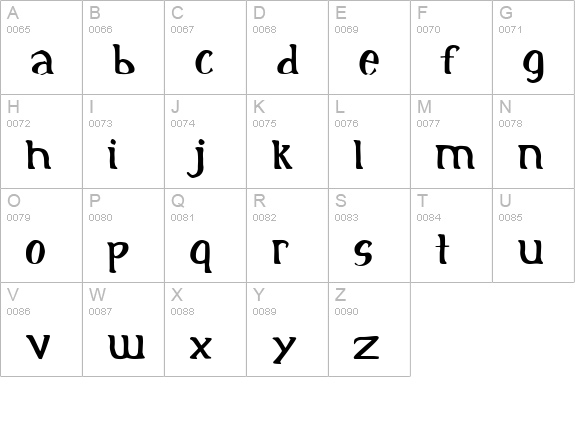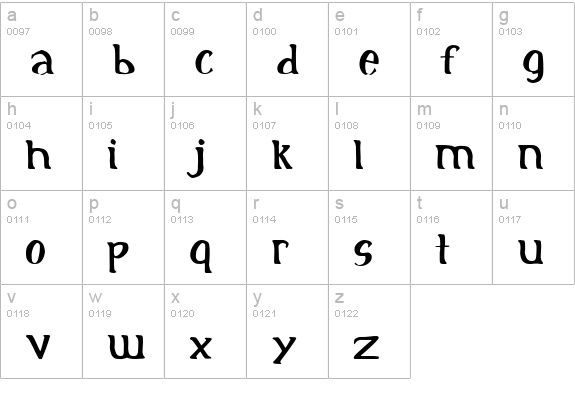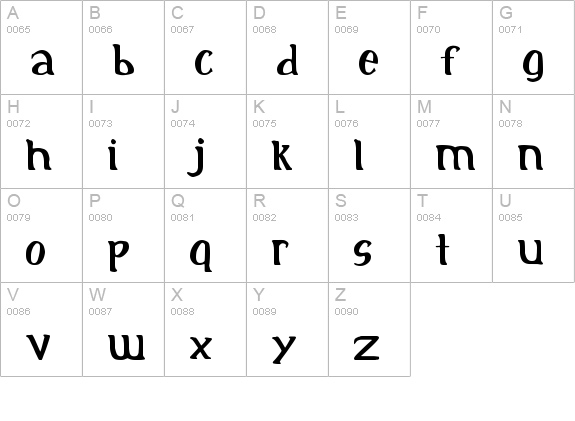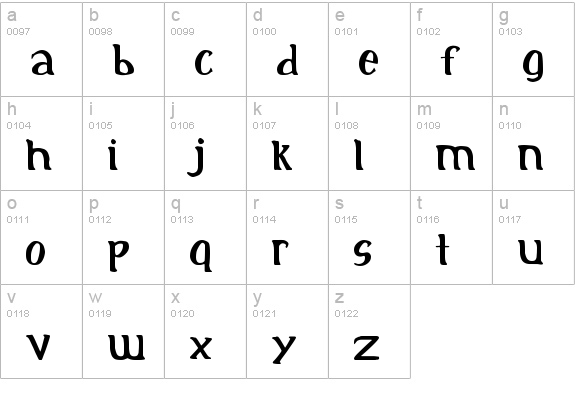
Initial Font Details
Introducing Initial font, a captivating typeface that exudes elegance and sophistication. Its enchanting curves and graceful strokes make it a perfect choice for any design project seeking to make a lasting impression. With its timeless appeal, Initial font effortlessly combines classic beauty with a modern twist. This versatile font offers a wide range of possibilities, whether you're designing a logo, creating a stunning invitation, or crafting a captivating headline. Its clean and legible characters ensure readability, while its artistic flair adds a touch of uniqueness to every design. What makes Initial font even more remarkable is that it is available for free download at FontsMarket.com. This means that you can enhance your projects with this stunning typeface without any financial constraints. Whether you're a professional designer or a creative enthusiast, Initial font allows you to unleash your creativity without breaking the bank. With its extensive character set, Initial font supports multiple languages, making it suitable for a global audience. Its smooth and seamless letterforms create a harmonious flow, enabling your text to effortlessly communicate your message. The beauty of Initial font lies in its ability to adapt to various design styles and aesthetics. Whether you're aiming for a contemporary look or a vintage vibe, this font effortlessly complements any visual concept. Its versatility knows no bounds, making it an invaluable asset in your design toolkit. Experience the magic of Initial font and elevate your designs to new heights. Download it for free at FontsMarket.com and unlock a world of creative possibilities. With Initial font, you have the power to captivate your audience and leave a lasting impression.